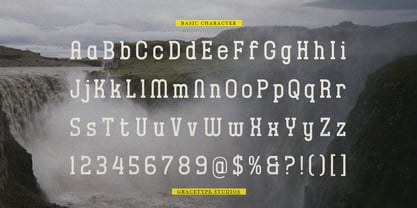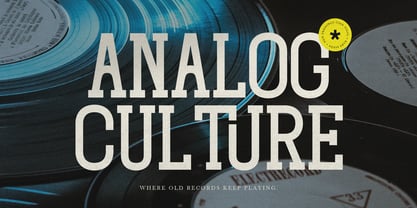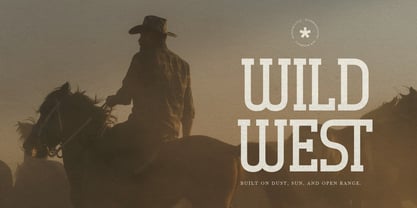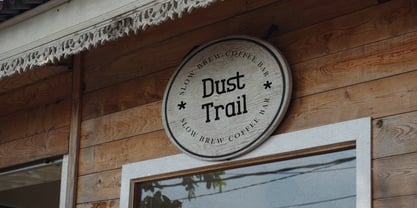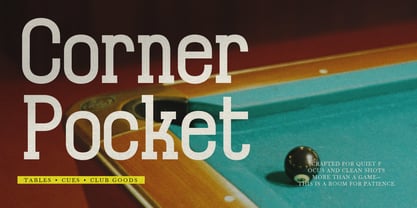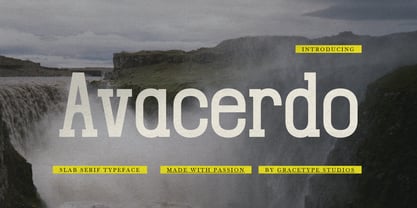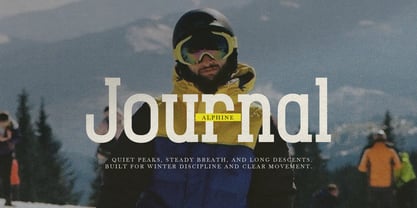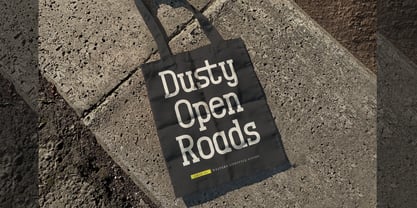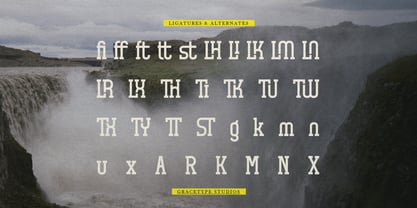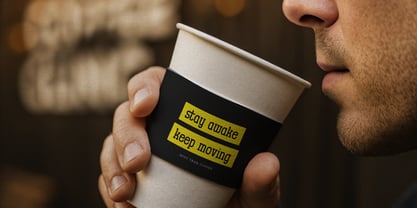
Avacerdo
Avacerdo | Slab Serif Typeface, from Gracetypestudio, suitable for any projects such as: logos, branding projects, homeware designs, product packaging, mugs, quotes, posters, shopping bags, t-shirts, book covers, name card, invitation cards, greeting cards, label, photography, watermark, special events, and all your other lovely projects that need a Slab Serif taste.